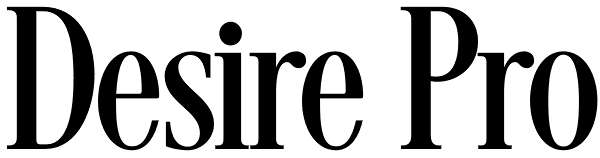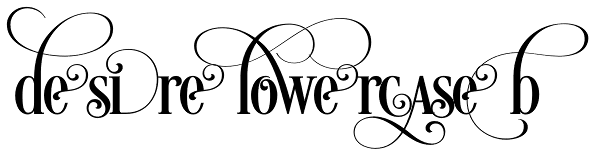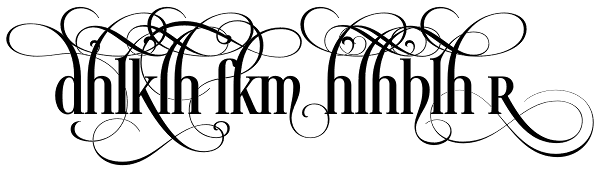
Desire
Desire Pro
Desire Pro Font
Desire Basic
Desire Basic Font
Desire Lowercase 1
Desire Lowercase 1 Font
Desire Lowercase 2
Desire Lowercase 2 Font
Desire Lowercase 3
Desire Lowercase 3 Font
Desire Uppercase 1
Desire Uppercase 1 Font
Desire Uppercase 2
Desire Uppercase 2 Font
Desire Uppercase 3
Desire Uppercase 3 Font
Desire Uppercase 4
Desire Uppercase 4 Font
Desire Uppercase 5
Desire Uppercase 5 Font
Desire Uppercase 6
Desire Uppercase 6 Font
Desire Uppercase 7
Desire Uppercase 7 Font
Desire Uppercase 8
Desire Uppercase 8 Font